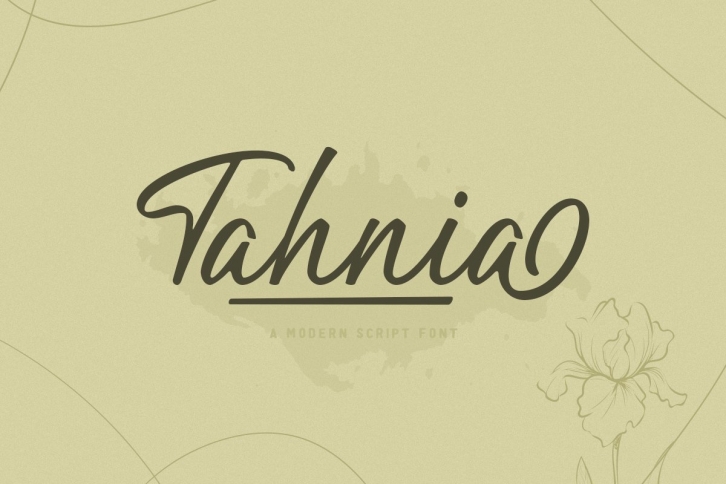
Tahnia - Modern Script FONT Download
Tahnia - Modern Script Font Download
Tahnia is a great font that was designed by Rillatype. Imagine the amount of combinations you can create using this font! The archive is 17.91 MB and it was released on September 10, 2020. Tahnia looks beautiful on wedding invitations, greeting cards, logos, posters, labels, t-shirt designs, logos, business cards and is perfect for use in ink or watercolor works, fashion, magazines, packaging and food menus, children's books and more!